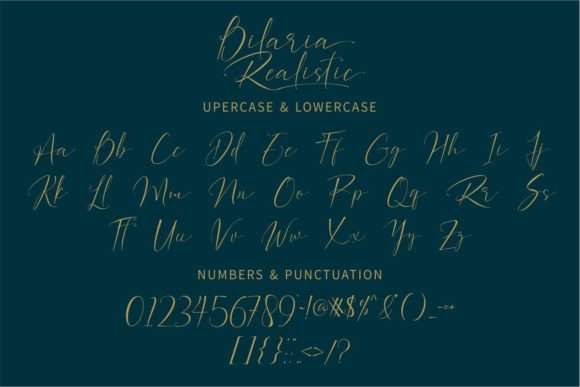
Bilaria Realistic Font: Elevate Your Designs with Elegance and Class
In the world of typography, a font can make or break the aesthetic appeal of a design. For those seeking a touch of elegance and sophistication, the Bilaria Realistic Font is an excellent choice. This lovely and delicate script font is specifically crafted for designers who require a beautiful and refreshing look to enhance their creations. In this article, we’ll explore the features and benefits of the Bilaria Realistic Font and how it can elevate your designs to new heights.
What is Bilaria Realistic Font?
Bilaria Realistic is a stunning script font that exudes elegance and class. Its delicate strokes and refined lines make it perfect for designs that require a touch of sophistication. Whether you’re working on a branding project, wedding invitation, or social media graphic, this font is sure to impress.
Benefits of Using Bilaria Realistic Font
- Elegant and Classy Look: Bilaria Realistic Font adds a touch of sophistication to any design, making it perfect for high-end branding, luxury packaging, and elegant wedding invitations.
- PUA Encoded: This font is PUA (Private Use Area) encoded, which means you can access all glyphs and swashes with ease. This feature makes it easy to use and customize the font to suit your design needs.
- Versatile: Bilaria Realistic Font is suitable for a wide range of design projects, from digital graphics to print materials.
Design Applications for Bilaria Realistic Font
Bilaria Realistic Font is an incredibly versatile font that can be used in various design applications, including:
- Branding and Logo Design: Create a lasting impression with a sophisticated logo that showcases your brand’s elegance and class.
- Wedding Invitations and Stationery: Add a touch of romance and sophistication to your wedding invitations, save-the-date cards, and other stationery.
- Social Media Graphics: Elevate your social media presence with eye-catching graphics that feature the Bilaria Realistic Font.
- Packaging Design: Create luxurious packaging that stands out on store shelves with the help of this elegant font.
Typography Tips for Using Bilaria Realistic Font
To get the most out of the Bilaria Realistic Font, follow these typography tips:
- Pair with Neutral Colors: Combine the font with neutral colors like black, white, or pastel shades to create a clean and elegant look.
- Experiment with Font Sizes: Play with different font sizes to create visual hierarchy and add emphasis to specific design elements.
- Use Swashes and Glyphs: Take advantage of the font’s PUA encoding and use swashes and glyphs to add a personal touch to your designs.
Pairing Bilaria Realistic Font with Other Fonts
To create a harmonious design, pair the Bilaria Realistic Font with other fonts that complement its elegant and classy style. Some font pairing suggestions include:
- Montserrat: A modern sans-serif font that provides a clean contrast to the script font.
- Lato: A sleek and elegant sans-serif font that complements the Bilaria Realistic Font’s refined lines.
- Playfair Display: A luxurious serif font that pairs well with the Bilaria Realistic Font’s elegant style.
In conclusion, the Bilaria Realistic Font is a stunning script font that can elevate your designs with its elegant and classy style. With its PUA encoding, versatility, and ease of use, this font is perfect for designers seeking to add a touch of sophistication to their creations. By following the typography tips and font pairing suggestions outlined in this article, you’ll be able to get the most out of the Bilaria Realistic Font and create designs that impress.